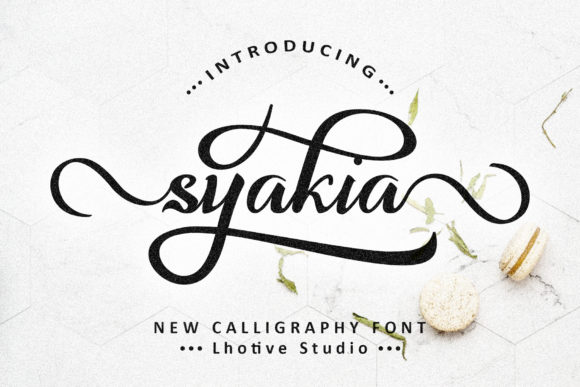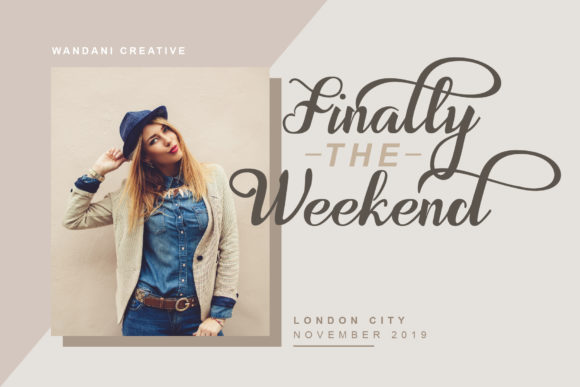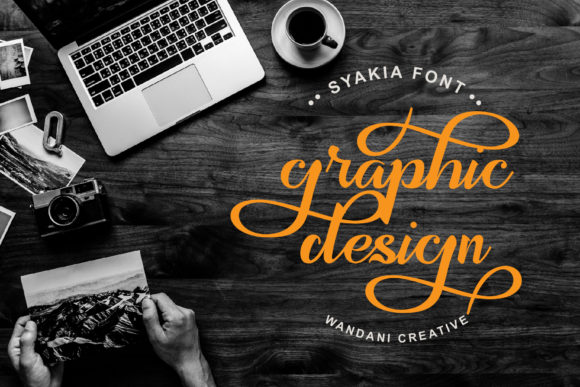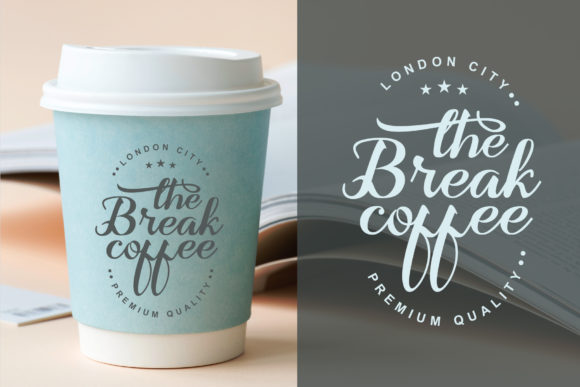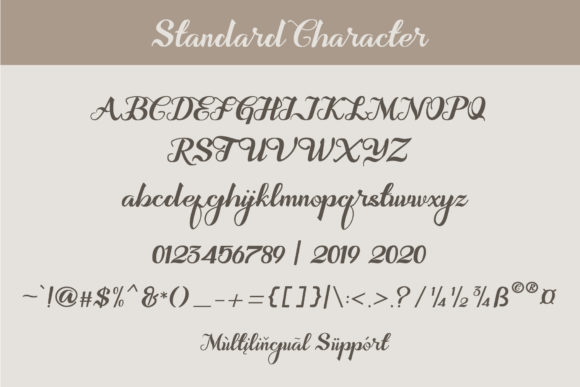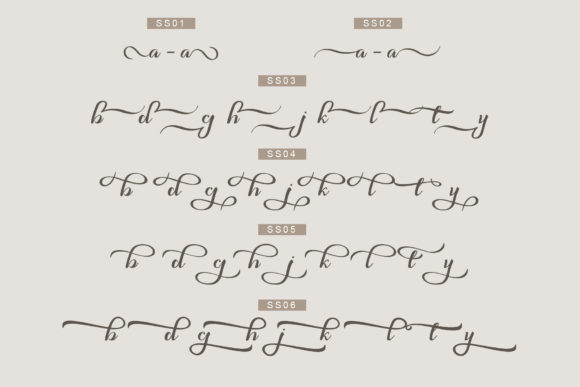
HomeScript FontsSyakia Font Script Fonts Syakia Font FacebookXPinterestWhatsApp Syakia Font Poster 2 Syakia Font Poster 3 Syakia Font Poster 4 Syakia Font Poster 5 Syakia Font Poster 6 About Syakia Font Syakia is a modern and unique handwritten font. It will take your designs to the next level! DOWNLOAD NOW People also explored Monogram F | Monofont Caps F Font Leutgard Mathilda Font Melaney Font Everbest Font SK Skrynka — Tech Geometric Font Ravenala Font Yolanda Font Habibie Font Bestival Font 291 0 TagsSyakia Font Previous articleSouthern FontNext articleShafira Font LEAVE A REPLY Cancel reply Comment: Please enter your comment! Name:* Please enter your name here Email:* You have entered an incorrect email address! Please enter your email address here Website: Save my name, email, and website in this browser for the next time I comment. Personal Use Free Sathscha Personal Use Free Read more about this font Yesstea Personal Use Free Read more about this font Browie Personal Use Free Read more about this font Fribash Personal Use Free Read more about this font BLOG Best Fonts for YouTube Videos: Make Your Thumbnails Stand Out Best Fonts for YouTube Videos: Make Your Thumbnails Stand Out Choosing the right font can make a massive difference in how your YouTube videos perform.... 5 Fonts That Will Dominate Design Trends in 2026 Elegant Wedding Invitation Fonts – Handwritten & Script Fonts Using Fonts in Digital Marketing: Tips to Strengthen Your Brand Identity